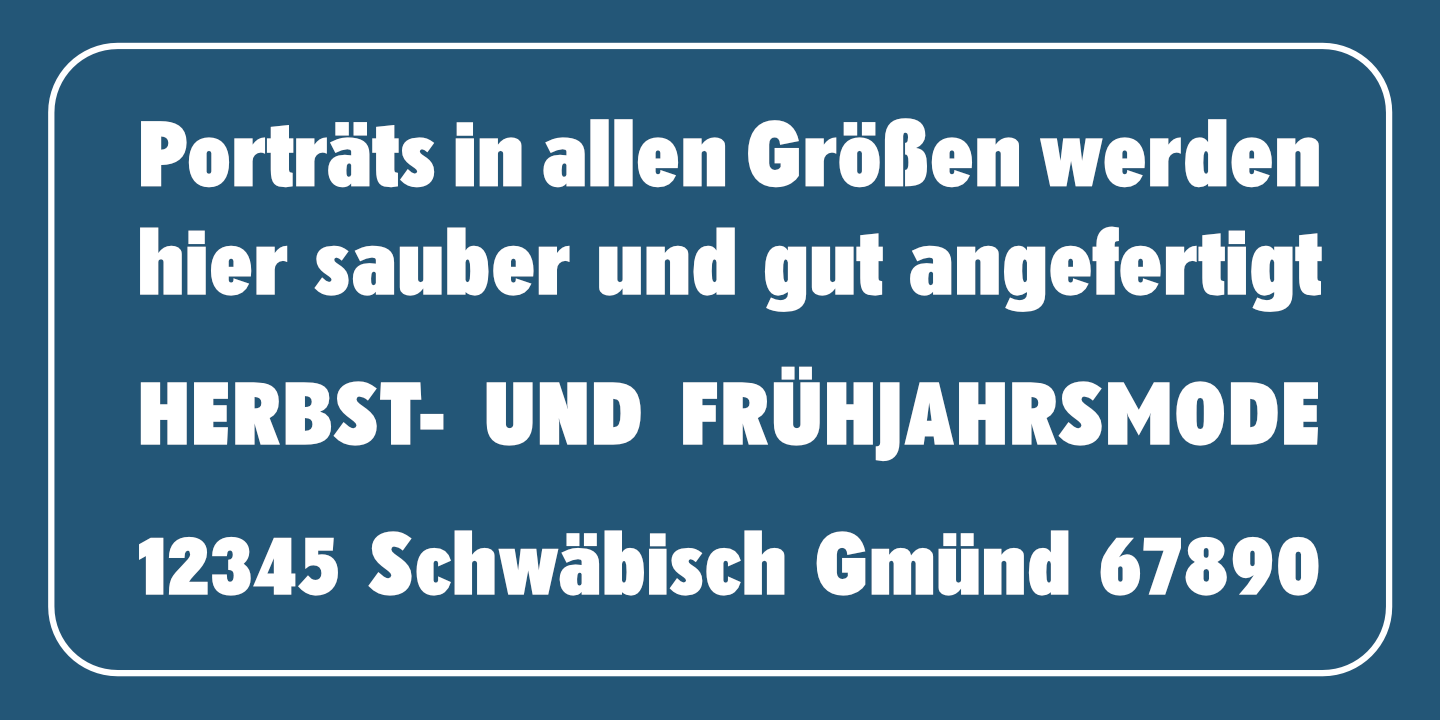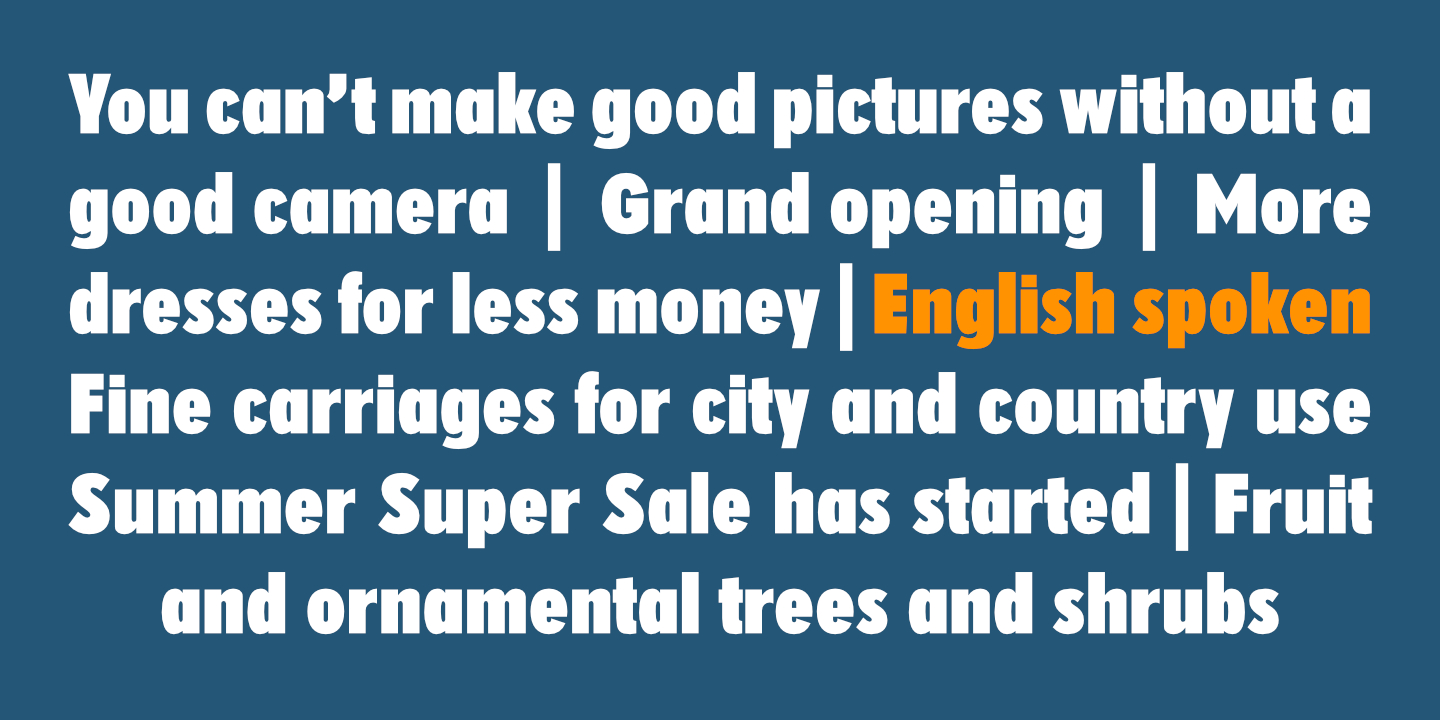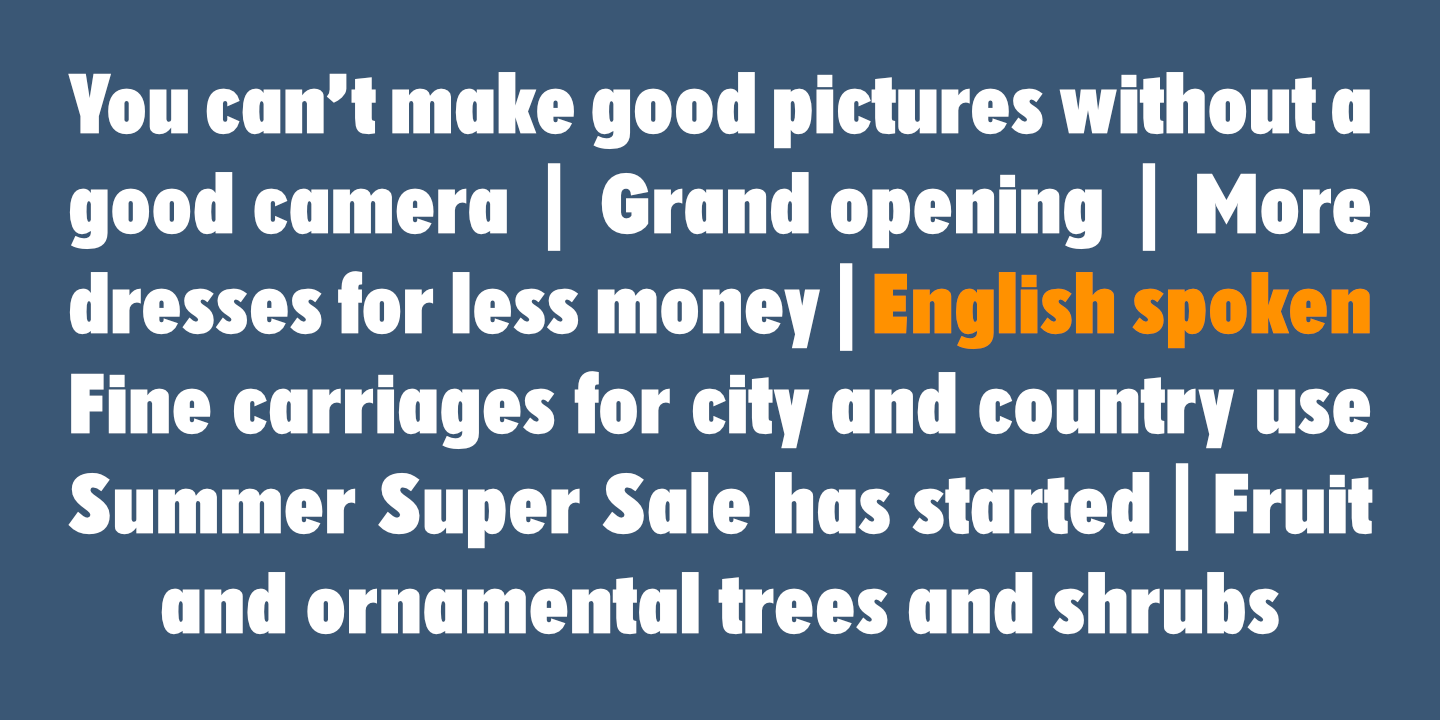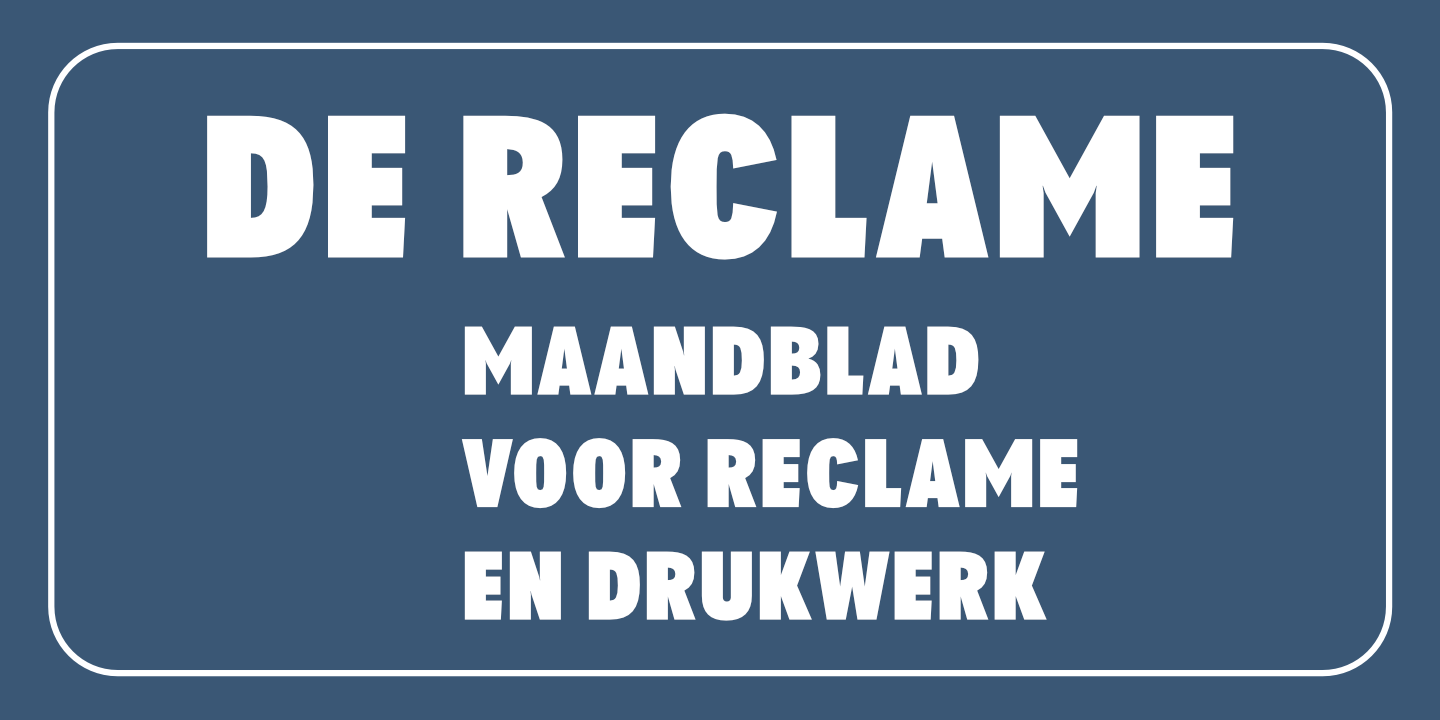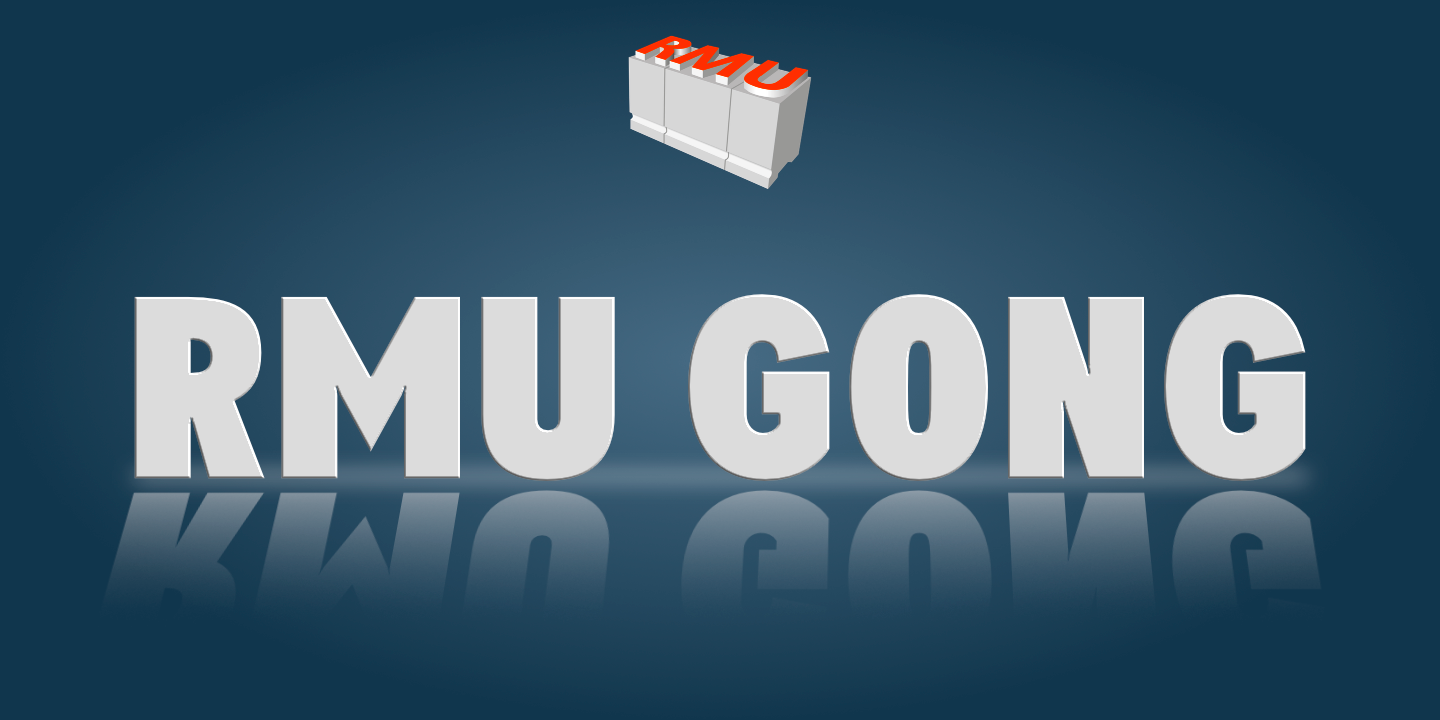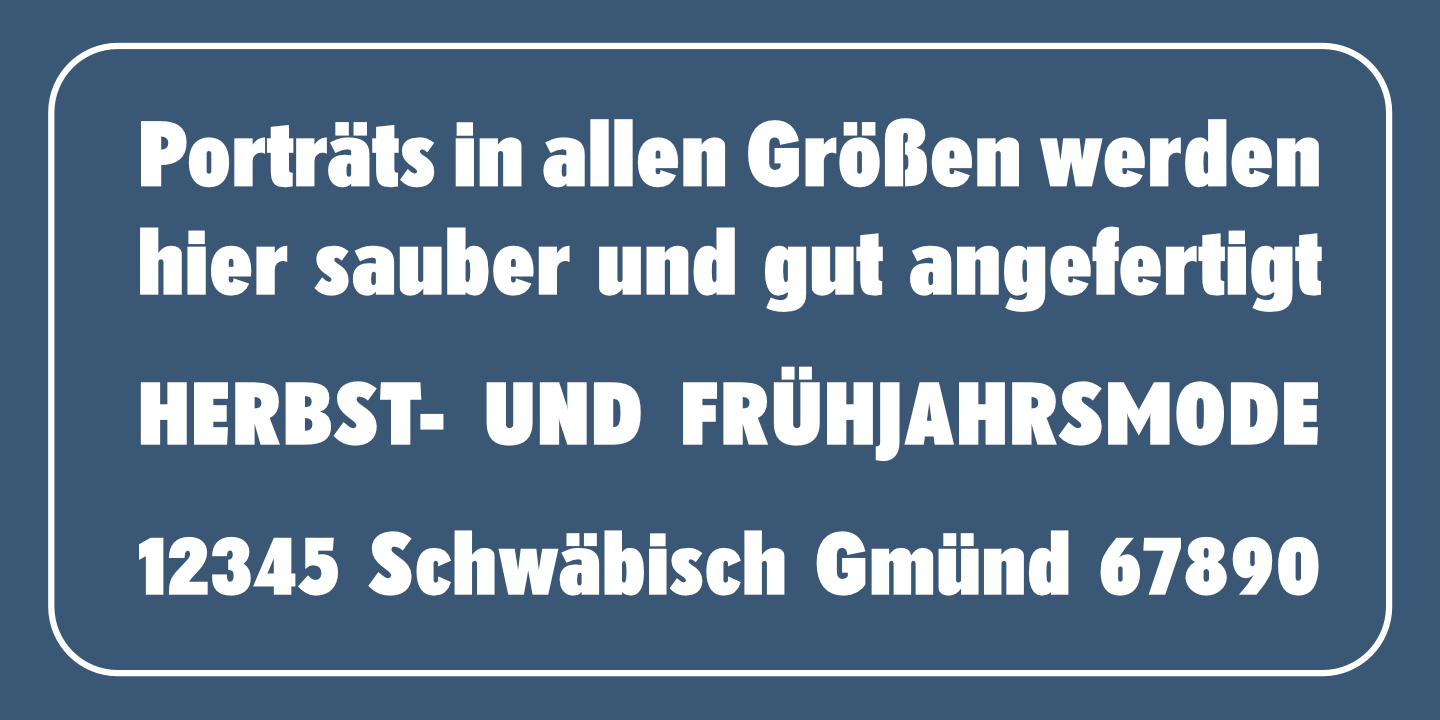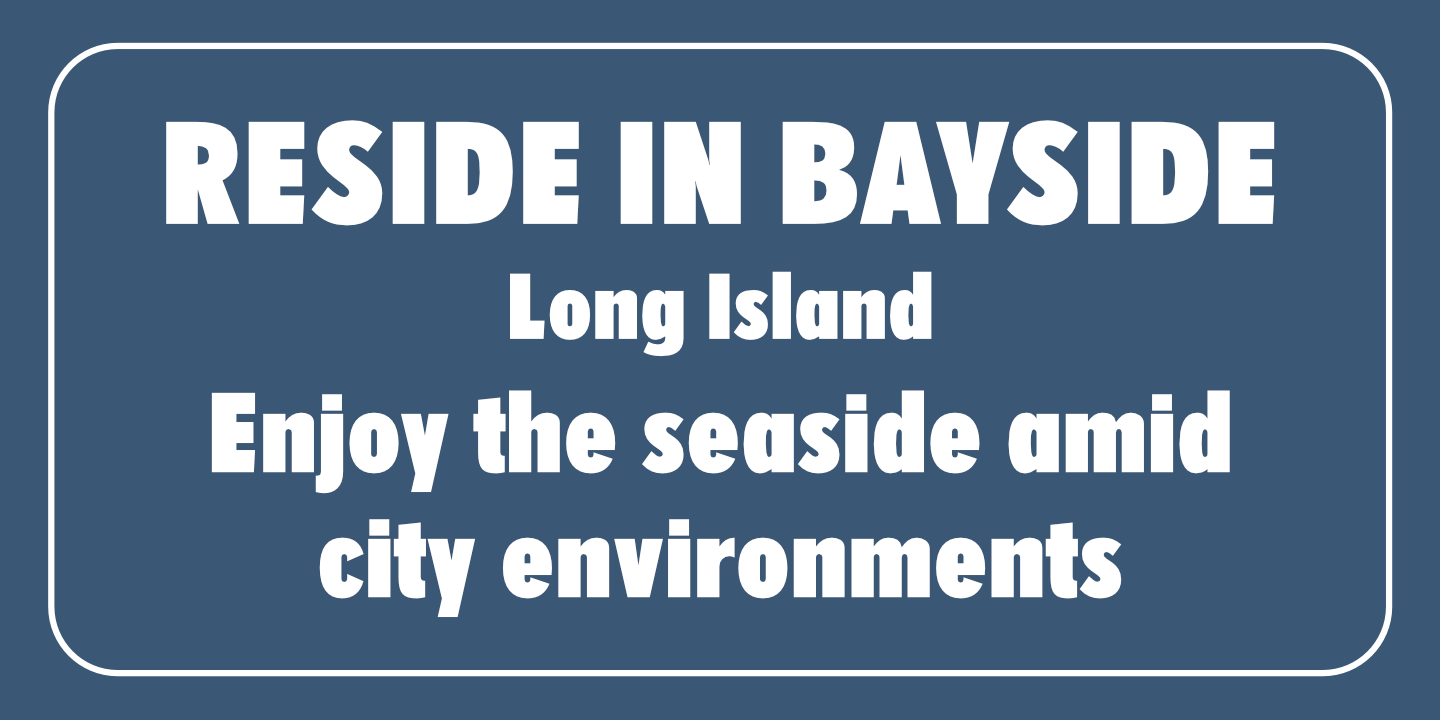
RMU Gong Regular
Based upon an Arno Drescher design for Schriftguss, RMU Gong was freshly redrawn and redesigned and is intended for being a splendid font for headlines, subtitles, ads, posters etc.
It comes with full sets of superior and inferior numbers, and even a long s can be accessed by typing [alt] + b.